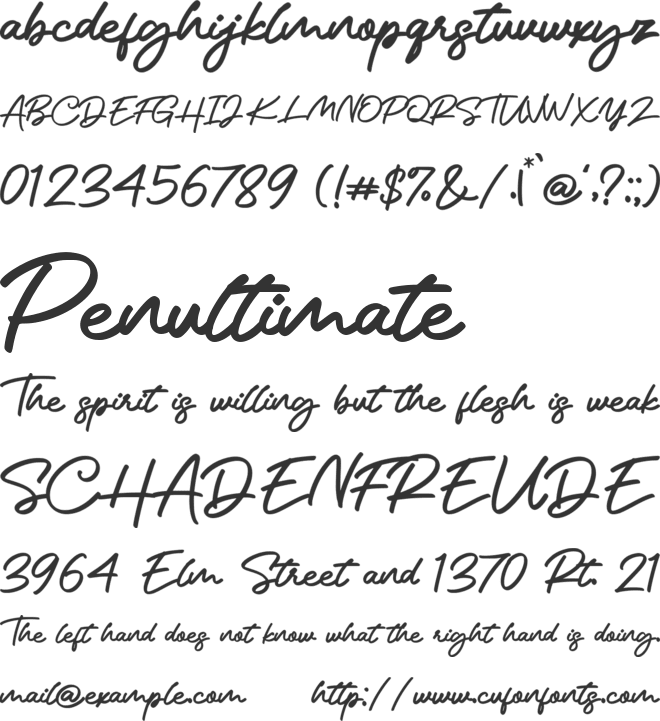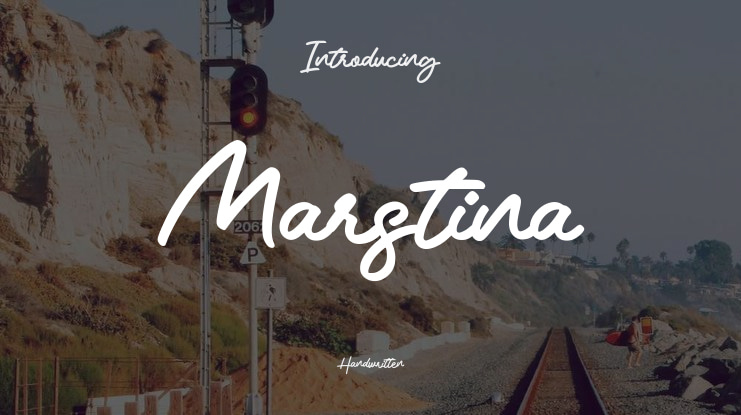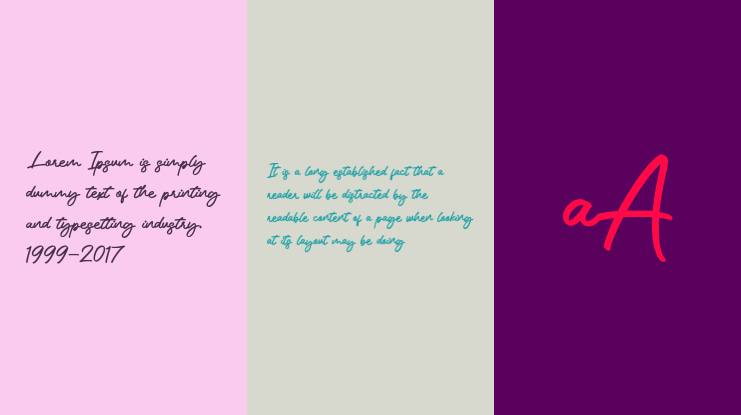
Marstina Font
INTRODUCING Marstina Handwritten Fon
Marstina Handwritten Font, a beautifully crafted Handwritten Font that flows effortlessly like a handwritten love letter.